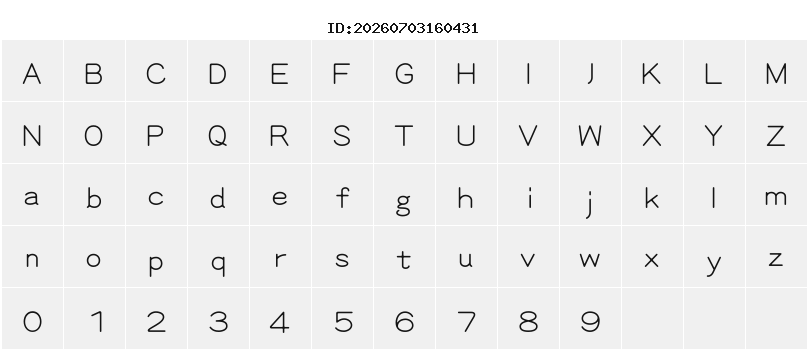
279-上首东方体.ttf is a modern, elegant sans-serif font designed for ultimate readability and visual harmony. Perfect for branding, headlines, web design, and print materials.